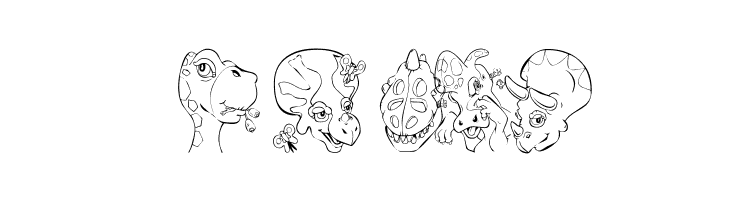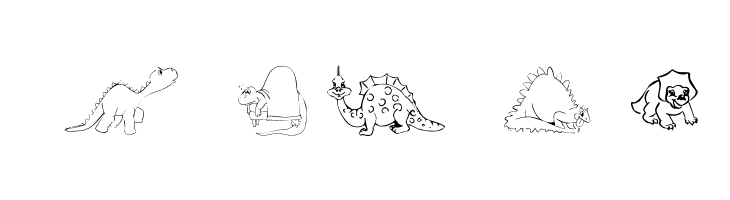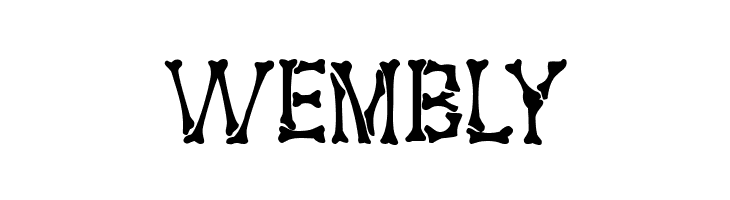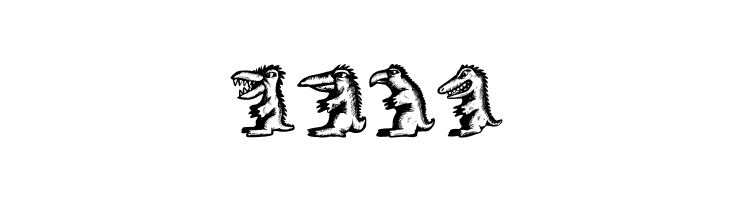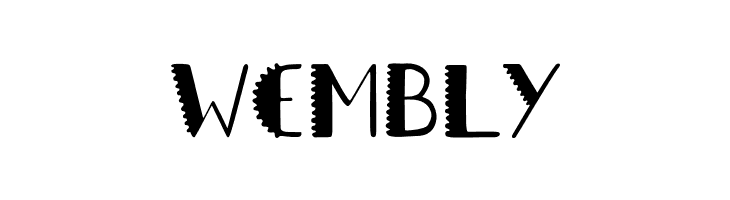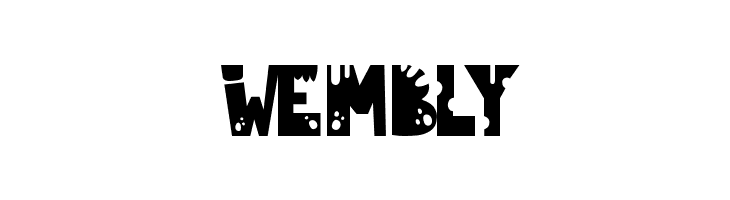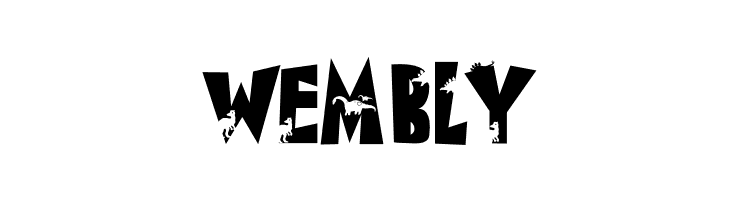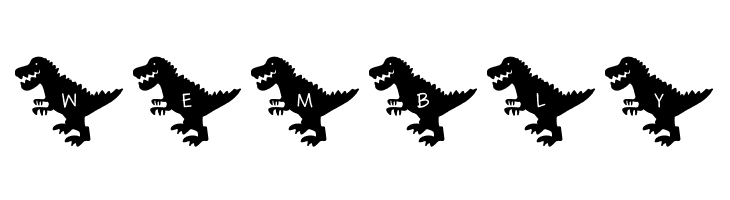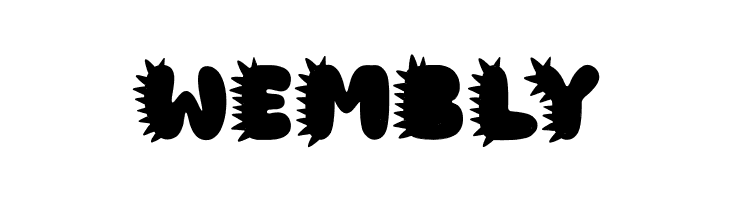
A classic serif font with elegant strokes and refined details.
A semi-serif font combining classic elegance with modern style.
A modern, clean sans-serif font with uniform stroke width and excellent readability.
A sleek, modern italic font with clean lines and smooth curves.
A playful, dinosaur-themed decorative font with detailed textures.
A playful, dinosaur-themed decorative font with cartoon characters.
A playful, dinosaur-themed font with whimsical, irregular shapes.
A playful, dinosaur-themed decorative font with bold, blocky letters.
Decorative cartoon dinosaur illustration font.
Cartoon dinosaur illustrations replace traditional letterforms.
A playful, dinosaur-themed decorative font with detailed, bold characters.
A playful, dinosaur-themed font with bold, spiky characters.
A bold, dinosaur-themed decorative font with playful embellishments.
A classic serif font with elegant strokes and a refined appearance.
A playful, dinosaur-themed font with bold, whimsical characters.
A playful dinosaur-themed font with letters and numbers integrated into dinosaur silhouettes.
A playful, dinosaur-inspired decorative font with bold, spiky characters.
A bold, playful font with jagged edges resembling dinosaur spikes.
A playful, dinosaur-themed decorative font with bold, rounded characters and integrated footprints.
A playful, dinosaur-themed font with bold, patterned characters.
A playful, dinosaur-themed decorative font with bold, rounded characters.
A playful dinosaur-themed font with bold, decorative letters.
A bold, dinosaur-themed font with playful, rugged edges.
A dinosaur-themed decorative font with playful, bold characters.
A bold, dinosaur-themed font with spiky, decorative letters.
A playful, dinosaur-themed font with creative and whimsical letterforms.
A playful, dinosaur-themed font with bold, cartoonish characters.
A playful dinosaur-themed font with whimsical elements for a fun visual impact.
Fantasy-themed display font with mythical creature silhouettes.
A playful, prehistoric-themed illustrative font with cartoonish characters.
A decorative font featuring evolutionary silhouettes within bold, 3D characters.
A bold, edgy font with a prehistoric, hand-drawn style.